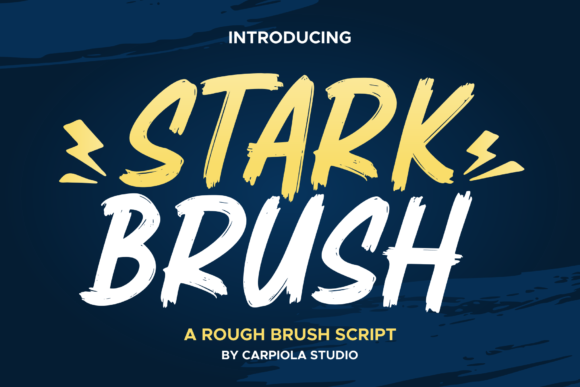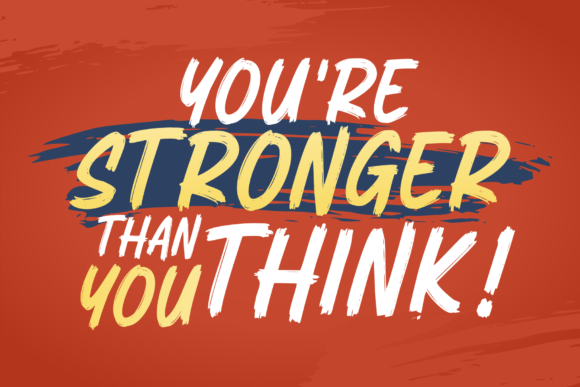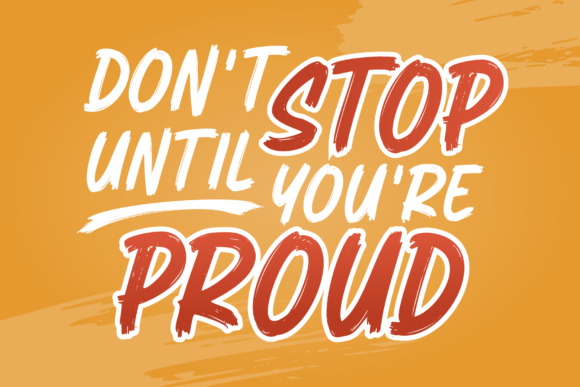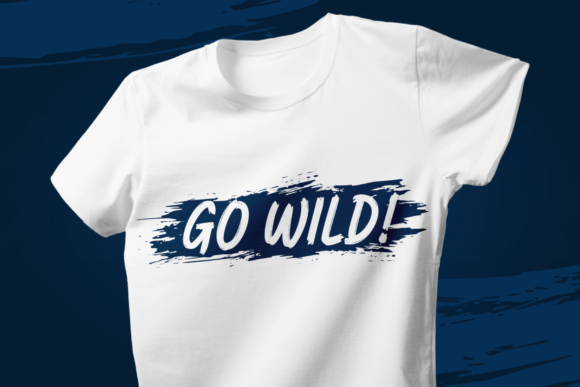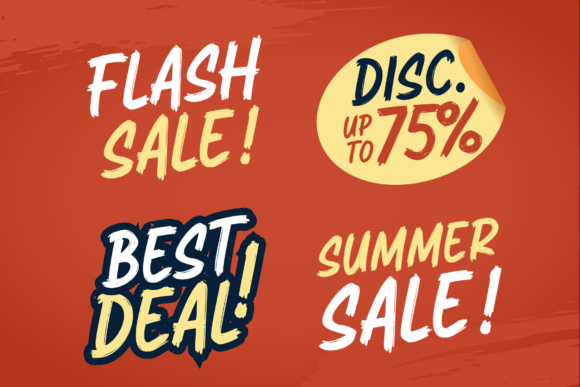
About Stark Brush Font
Stark Brush is a rough brushed handwritten font.
It is the best choice for creating attractive logos, branding, clothing designs, quotes and more.
Each letter adds a unique and beautiful touch to your design, bringing it to life with a street art vibe.